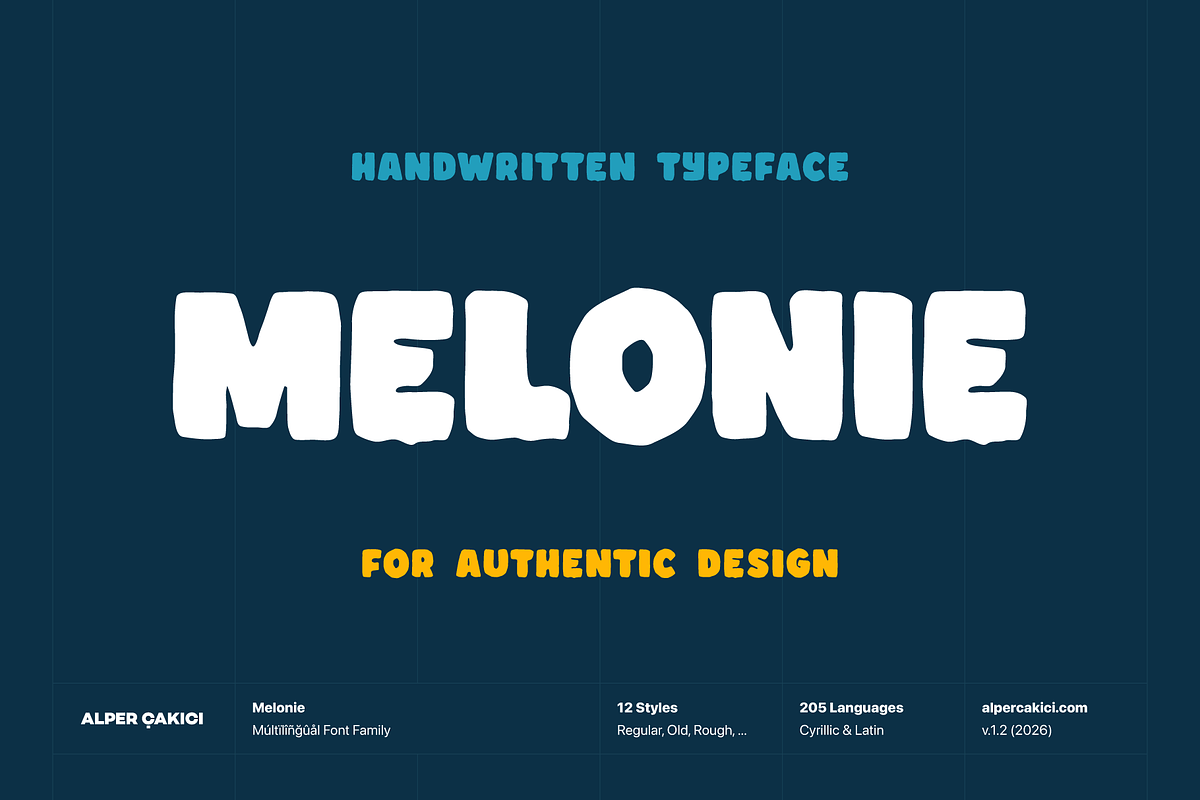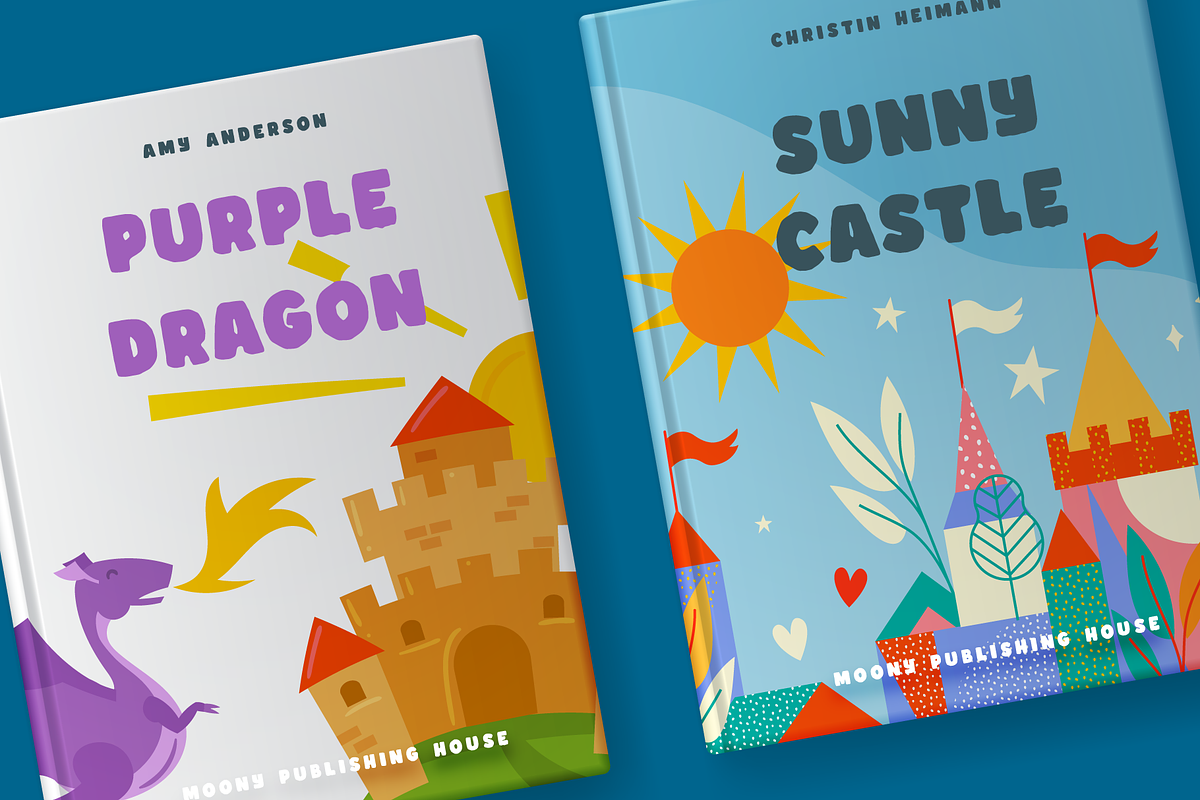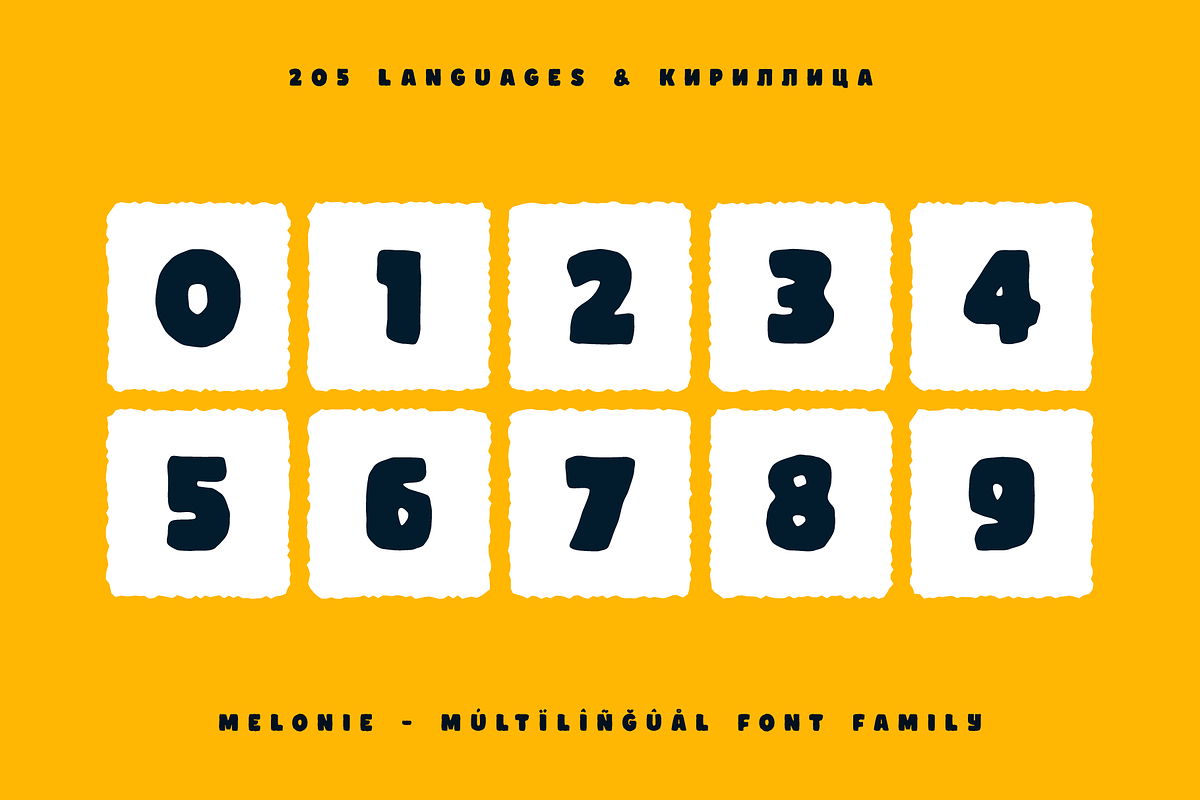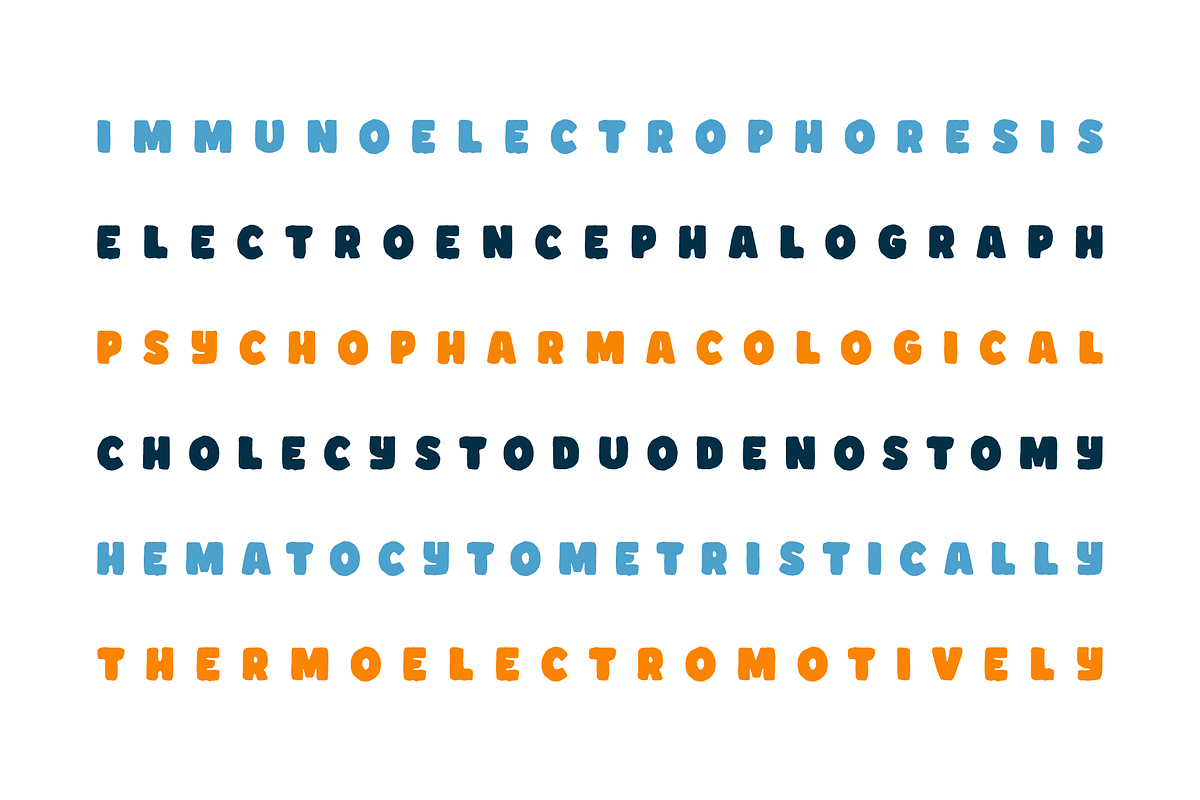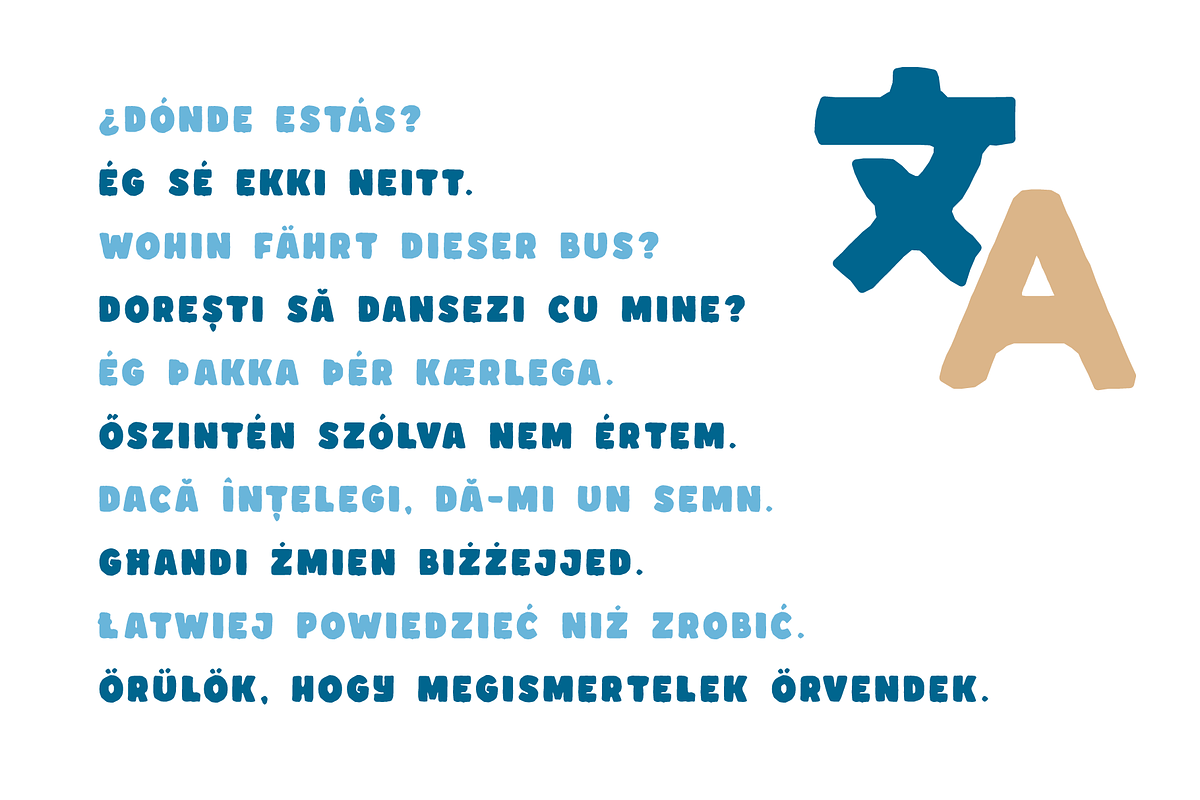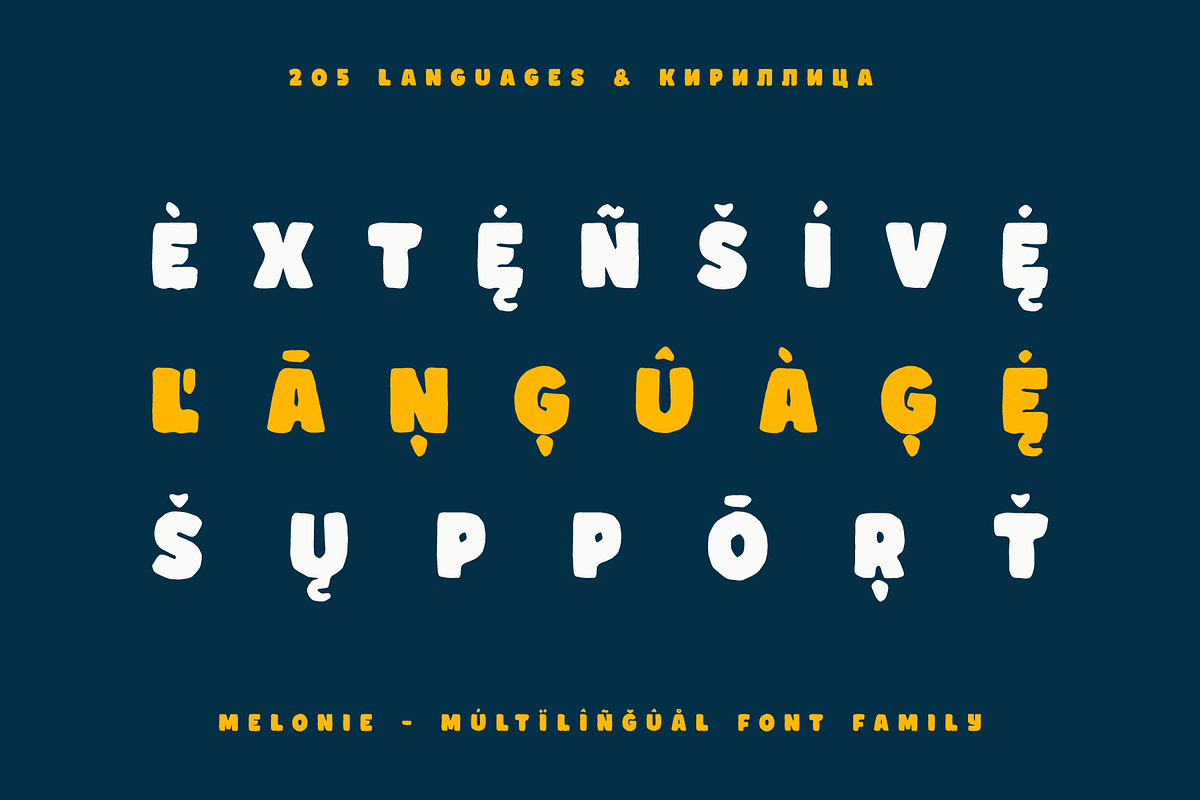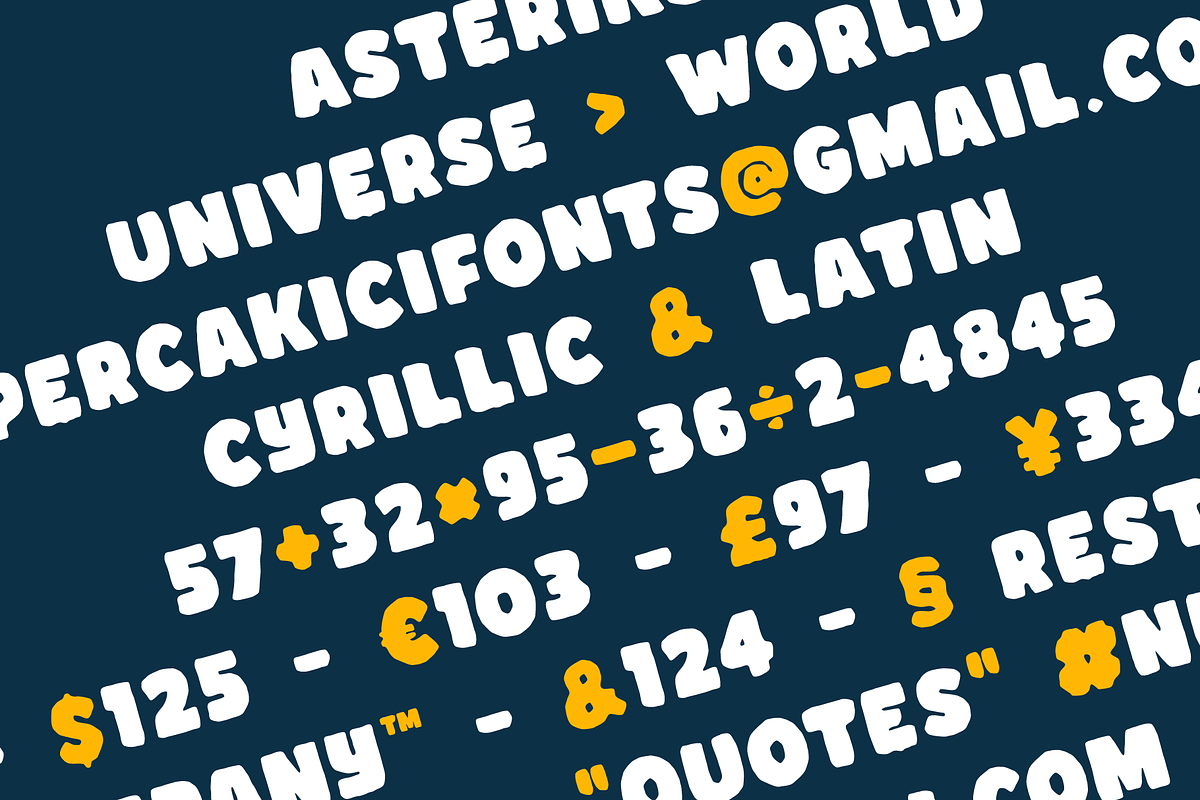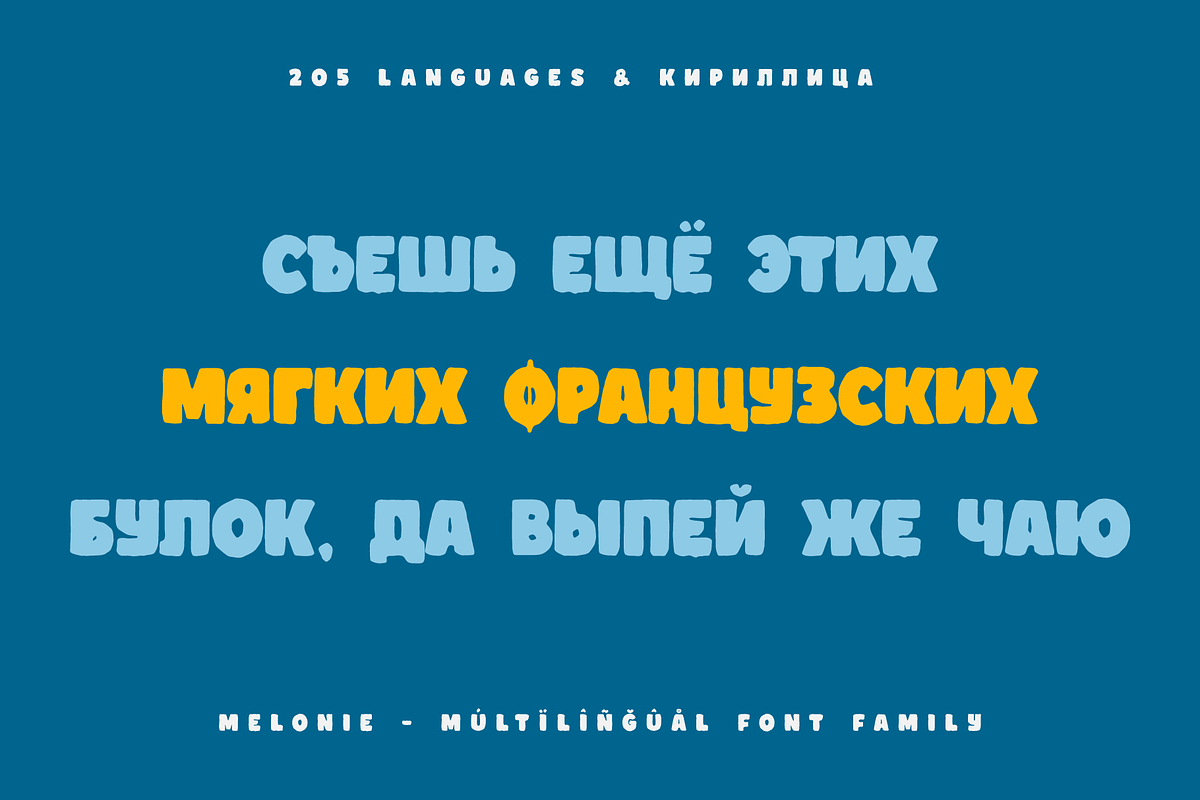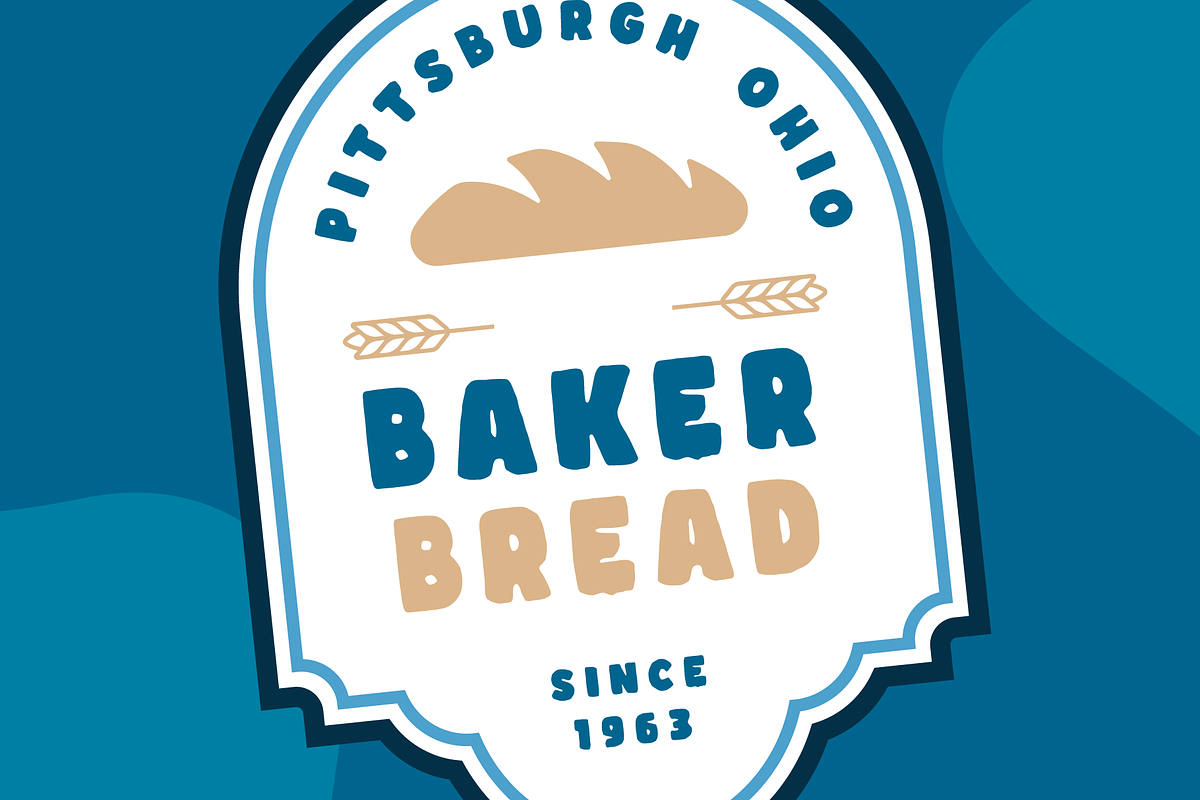
Melonie Bold Typeface
Melonie is a cheerful rugged display typeface that combines soft curves, gently worn textures, and handcrafted character in a charming all-caps design. Inspired by vintage signage, weathered prints, and the imaginative spirit of childhood creativity, it brings warmth, personality, and a welcoming feel to any project.
Each letter is thoughtfully crafted with rounded shapes and subtle distressed details, creating a naturally aged appearance while remaining clear and easy to read. The combination of smooth forms and textured edges gives Melonie a distinctive balance of playful charm and vintage character, making it equally suitable for nostalgic designs and contemporary creative work.
Designed for multilingual projects, Melonie includes 544 glyphs and extensive Latin and Cyrillic language support, offering excellent versatility for designers around the world. The family consists of twelve coordinated styles, making it easy to move between cleaner and more textured looks while maintaining a consistent visual identity.
The family includes Regular, Italic, Aged, Aged Italic, Hazy, Hazy Italic, Old, Old Italic, Rough, Rough Italic, Outline, and Outline Italic styles. These variations provide plenty of creative flexibility for branding, packaging, children's products, posters, book covers, social media graphics, merchandise, editorial layouts, and playful visual identities.
Whether you're creating cozy branding, handmade packaging, educational materials, storybooks, seasonal promotions, or eye-catching display typography, Melonie adds warmth, charm, and personality to every design. Its friendly construction and versatile style options make it a memorable choice for projects that need a playful voice with a touch of vintage appeal.
Features: • 12 font styles • 544 glyphs • Extensive Latin support • Cyrillic support • Multilingual language coverage • OpenType features • Perfect for branding, packaging, posters, children's projects, book covers, and display typography